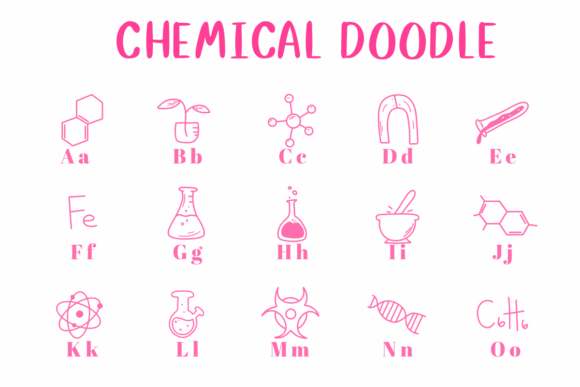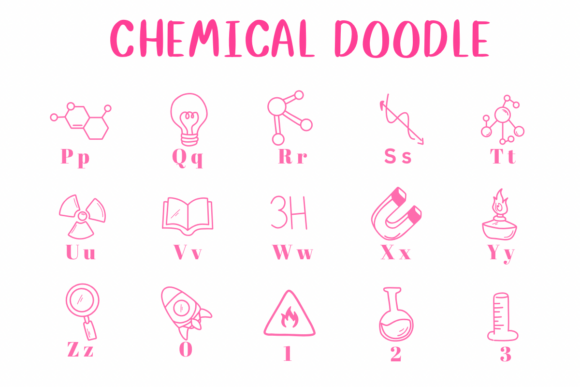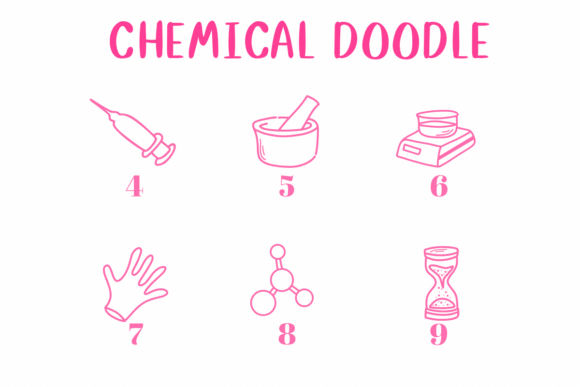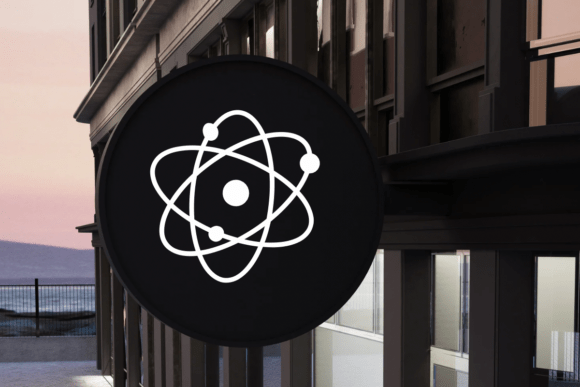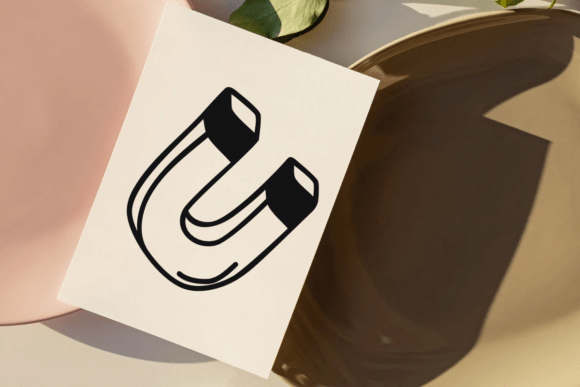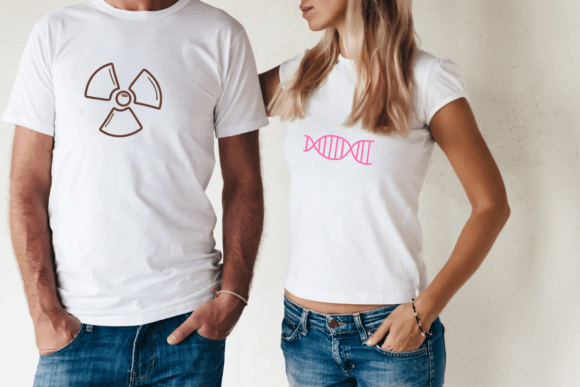
Unlock Your Creativity with Chemical Doodle Font
Are you a designer, crafter, or DIY enthusiast looking for a unique and creative way to add a personal touch to your projects? Look no further than the Chemical Doodle Font, a versatile dingbats font with a charming sketched style. In this article, we’ll explore the features and benefits of Chemical Doodle, and show you how it can elevate your creative projects, from wedding invitations to logos and beyond.
What is Chemical Doodle Font?
Chemical Doodle is a dingbats font that features hand-sketched illustrations, giving it a delightfully imperfect and organic feel. The font is made up of a wide range of doodles, including shapes, patterns, and icons, which can be used to add visual interest and personality to your designs. With Chemical Doodle, you can create unique and eye-catching projects that stand out from the crowd.
Features of Chemical Doodle Font
- Hand-sketched illustrations: Each character in the Chemical Doodle font has been carefully hand-drawn to give it a distinctive, imperfect feel.
- Wide range of doodles: The font includes a vast array of doodles, from simple shapes to intricate patterns and icons.
- Versatile and flexible: Chemical Doodle can be used for a wide range of creative projects, from digital designs to print materials.
Creative Uses for Chemical Doodle Font
Chemical Doodle is an incredibly versatile font that can be used for a wide range of creative projects. Here are just a few ideas to get you started:
- Wedding invitations: Add a personal touch to your wedding invitations with custom doodles and illustrations.
- DIY crafts: Use Chemical Doodle to create unique and personalized DIY crafts, such as handmade cards and gift tags.
- Decorations: Create custom decorations, such as garlands and banners, using the font’s intricate patterns and shapes.
- Logos and branding: Use Chemical Doodle to create a unique and memorable logo for your business or brand.
- Social media graphics: Add a touch of personality to your social media graphics with custom doodles and illustrations.
Tips and Tricks for Using Chemical Doodle Font
Here are a few tips and tricks to help you get the most out of Chemical Doodle:
- Experiment with different colors: The font’s hand-sketched illustrations look great in a range of colors, so don’t be afraid to experiment and find the perfect hue for your project.
- Combine with other fonts: Chemical Doodle pairs well with a range of other fonts, so try combining it with your favorite font to create a unique and interesting effect.
- Use it sparingly: While Chemical Doodle is a beautiful font, it can be overwhelming if used too much. Use it sparingly to add a touch of personality to your design.
Chemical Doodle Font is a versatile and creative dingbats font that can add a personal touch to a wide range of projects. With its hand-sketched illustrations and wide range of doodles, it’s the perfect choice for designers, crafters, and DIY enthusiasts looking to add a unique and creative element to their work. Whether you’re creating wedding invitations, logos, or social media graphics, Chemical Doodle is sure to inspire your creativity and help you stand out from the crowd.